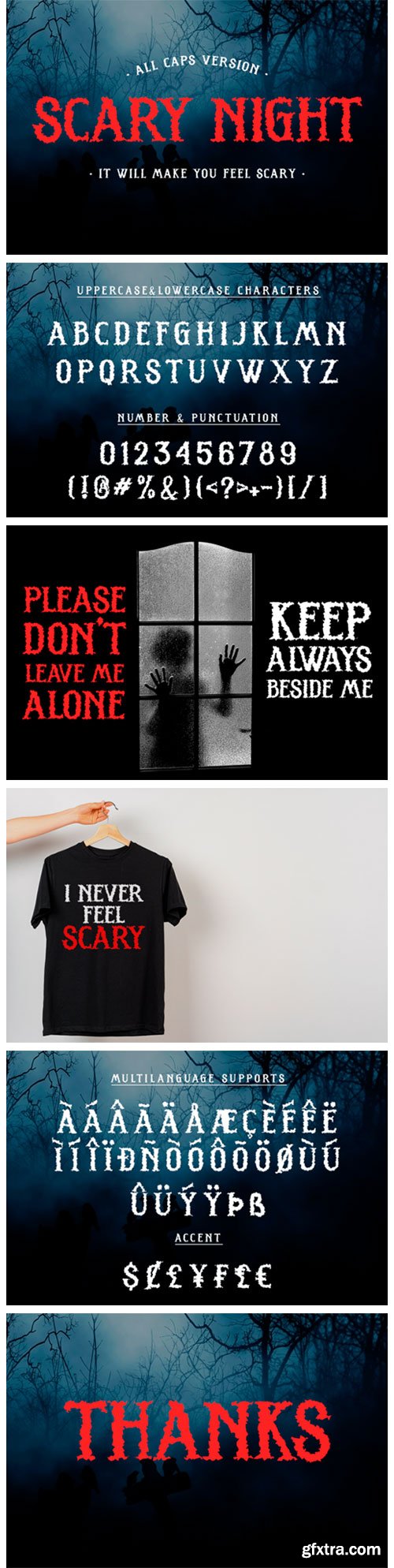
Scary Night Font
Scary Night is a unique display font with a horrow Halloween theme. Fall in love with its completely different style and use it to create spectacular Halloween-themed designs!